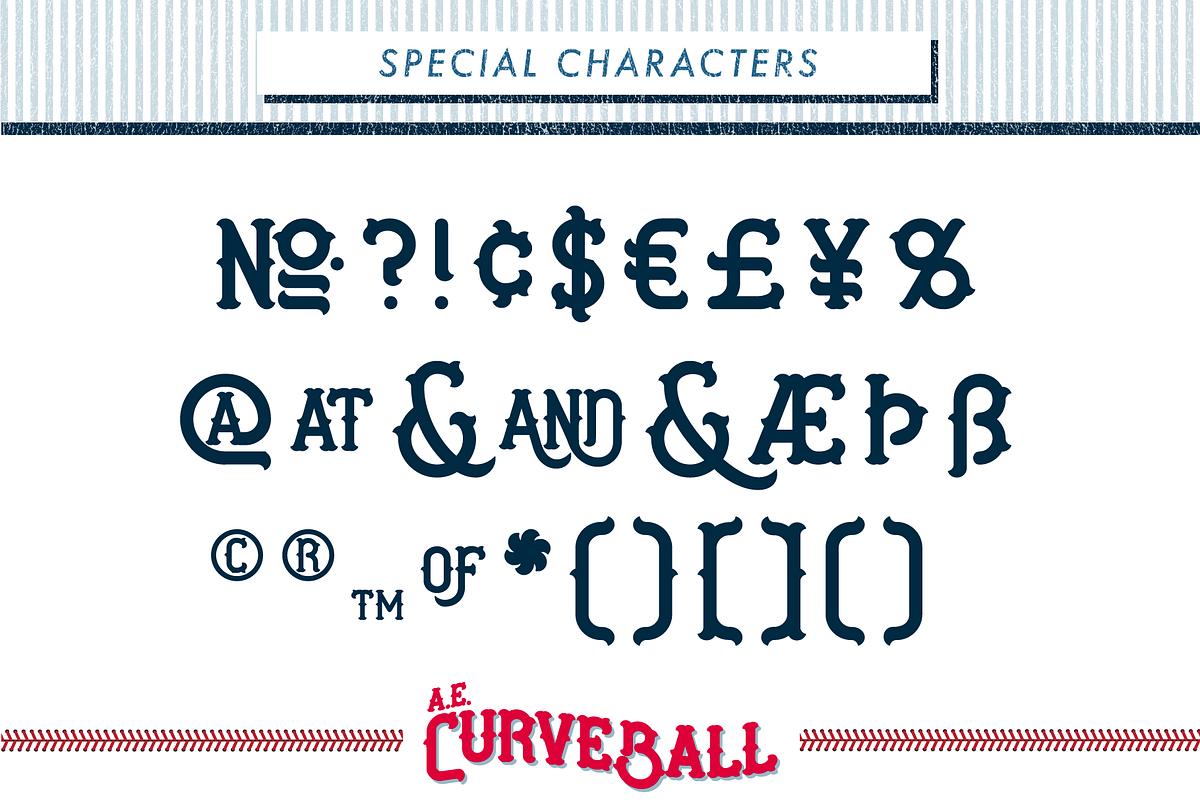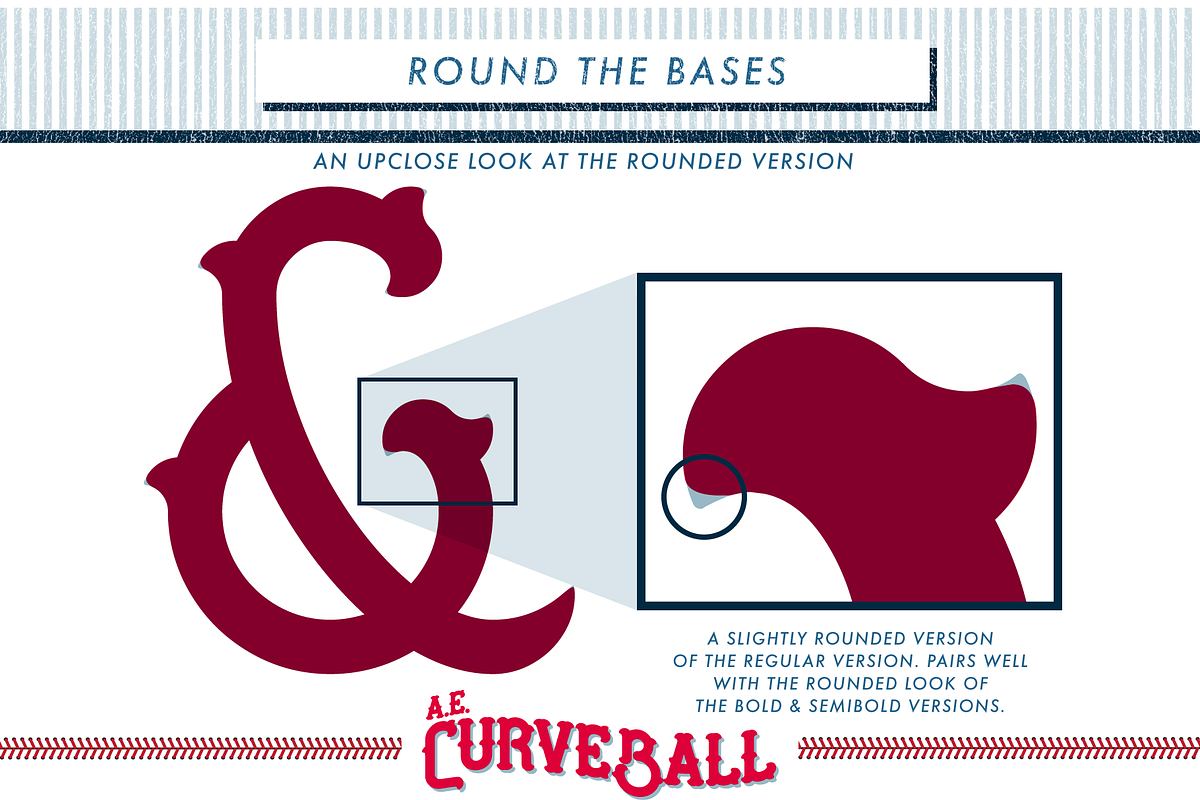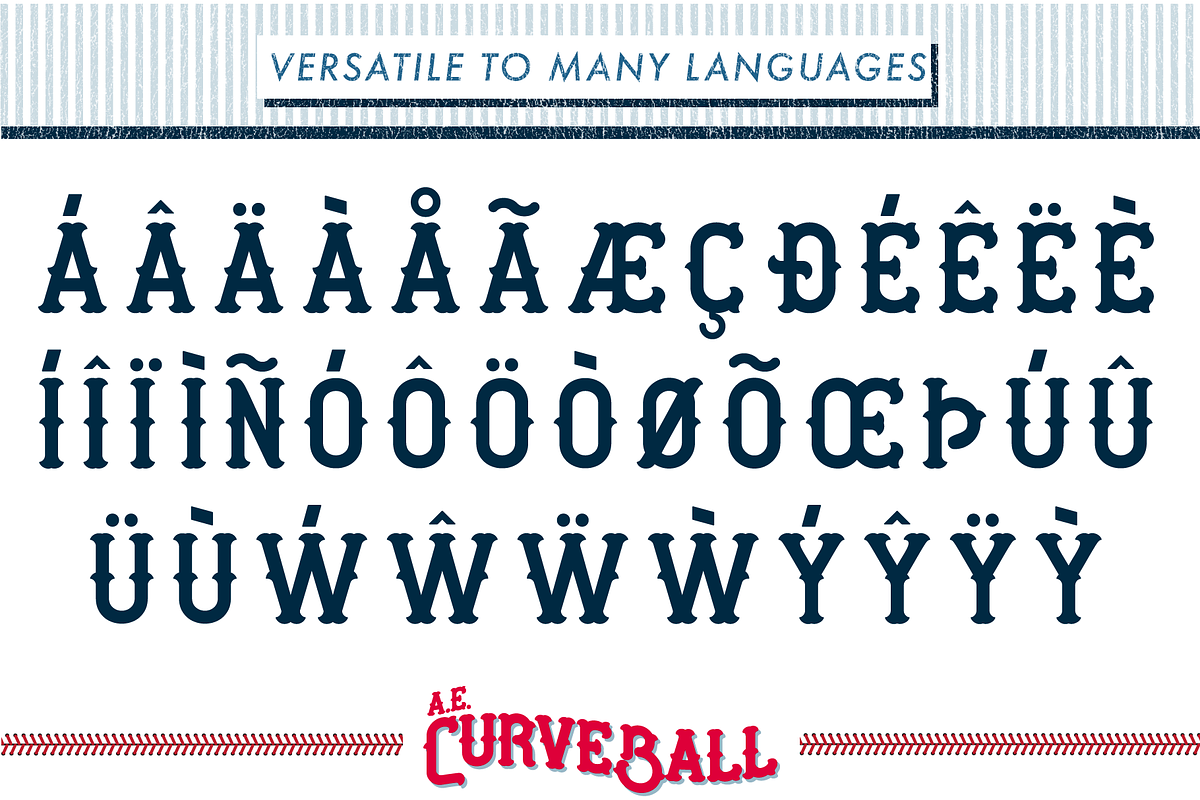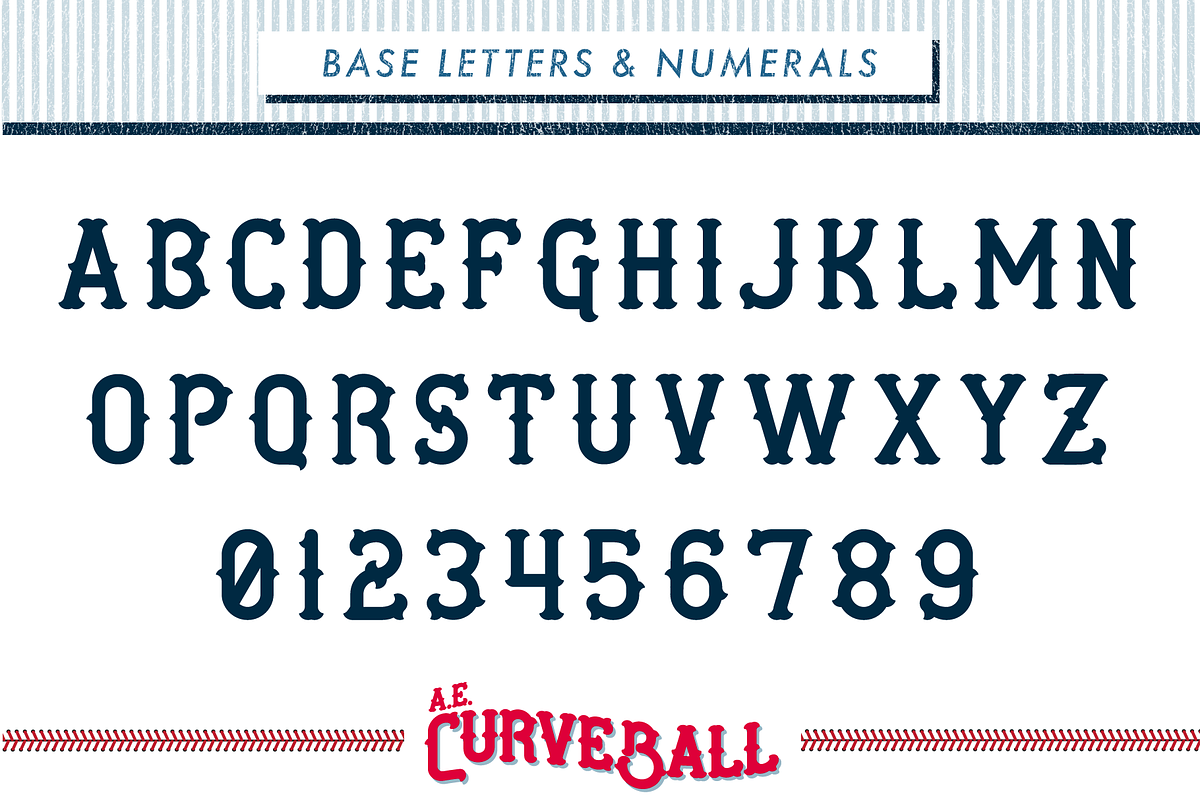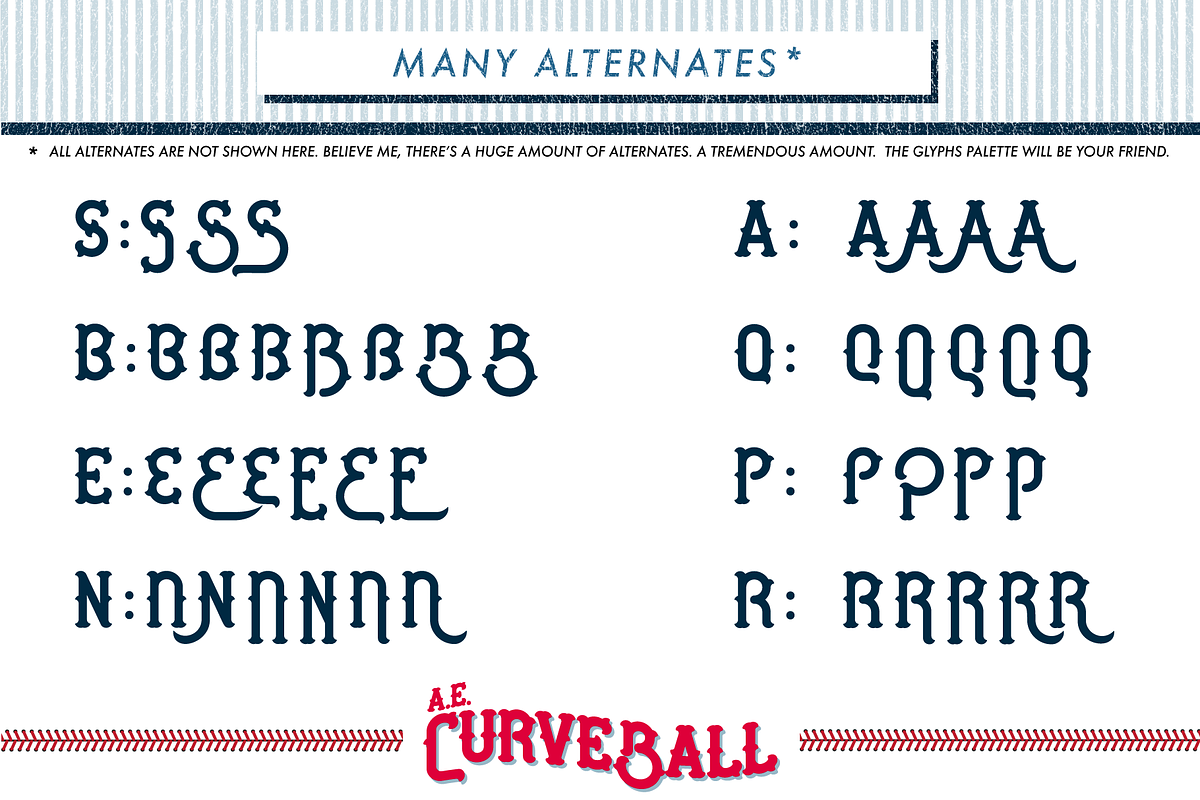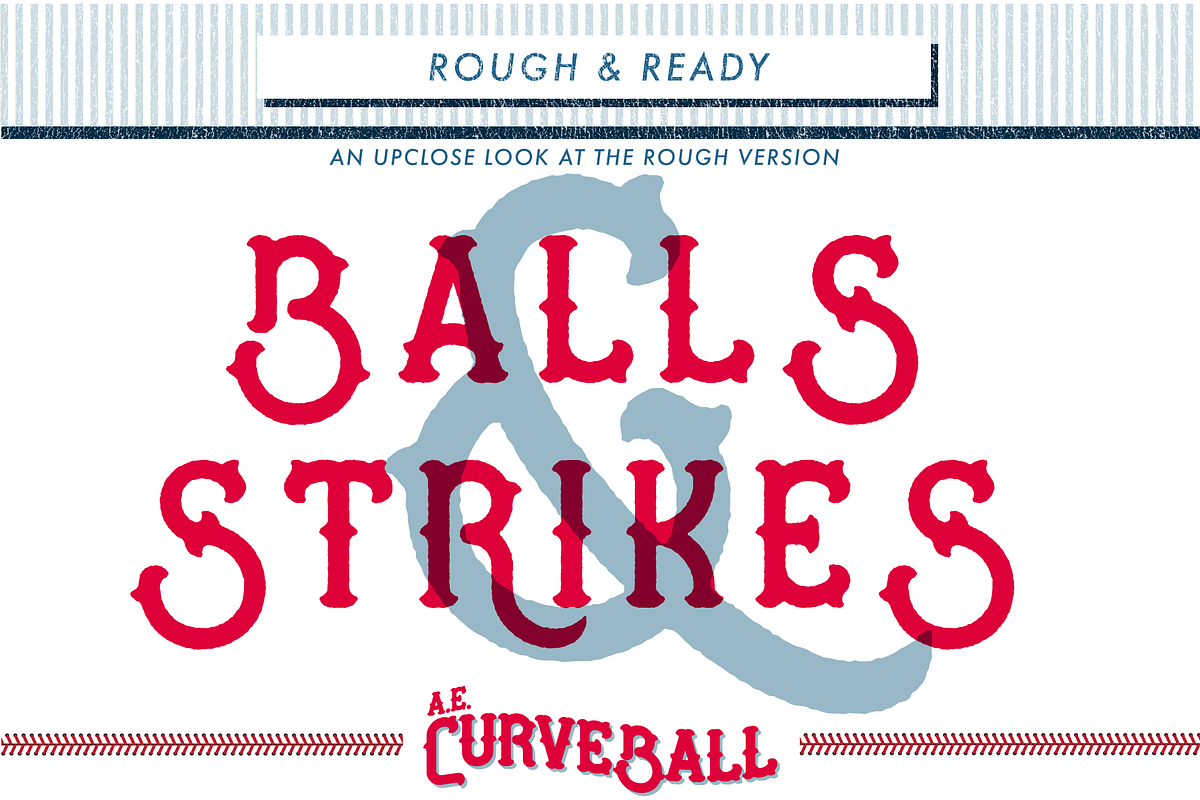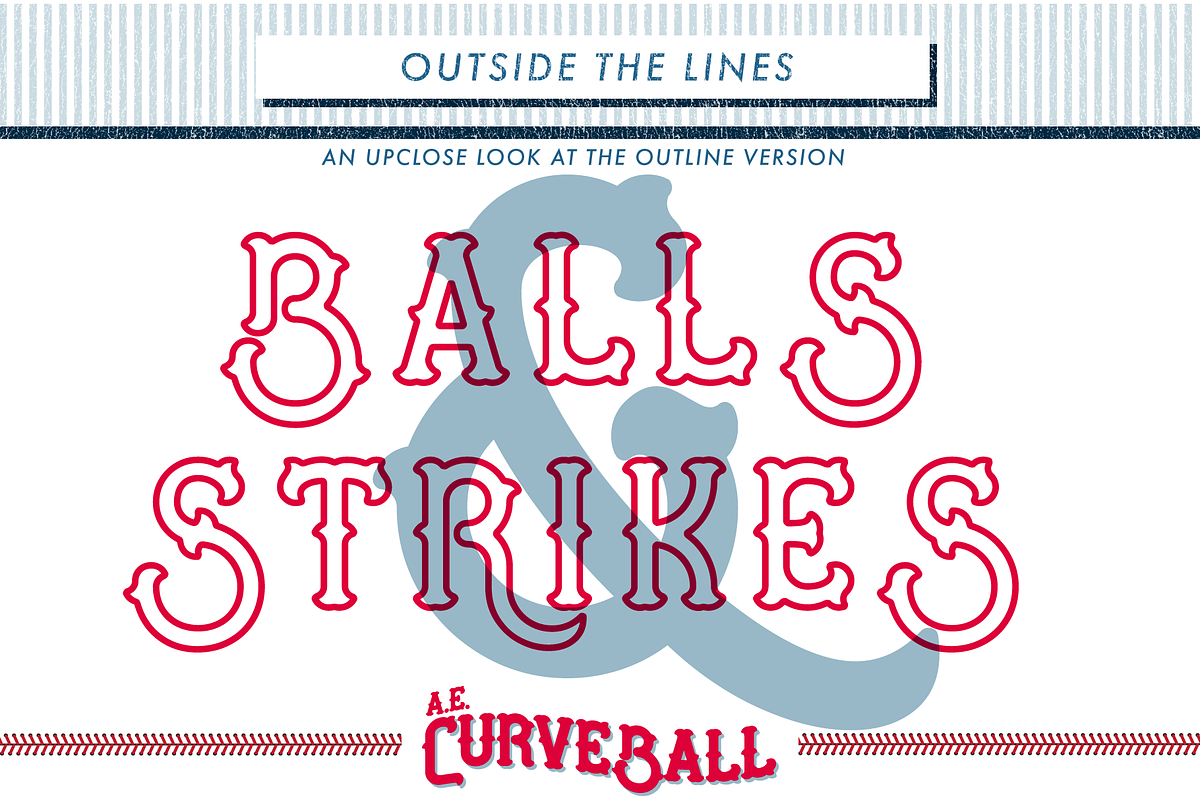
AE Curveball Vintage Typeface
These days are pretty great with smartphones, Netflix & Chipotle but there’s just something about the olden days...
Harken back to a simpler time, an era when players weren’t scared of dirt and when a little hustle got the fans all whipped up with Curveball, the latest font from American Eargle.
Curveball is a Tuscan-inspired vintage look that makes your designs reminiscent of sepia tones, wool uniforms, & Cracker Jack.
Keeping in the spirit of simplicity, Curveball offers 6 versions:
Take your designs back in time and give viewers that nostalgic feeling with Curveball.
- AE Curveball Regular
- AE Curveball SemiBold
- AE Curveball Bold
- AE Curveball Outline
- AE Curveball Rough
- AE Curveball Rounded